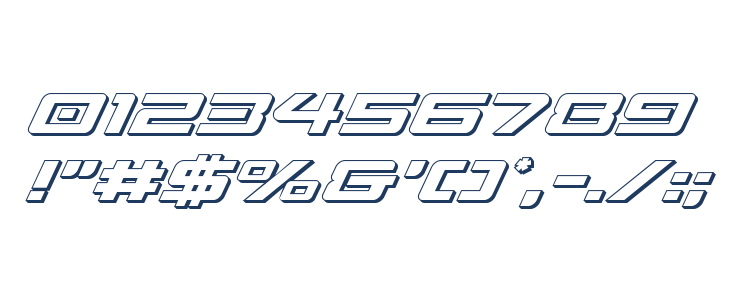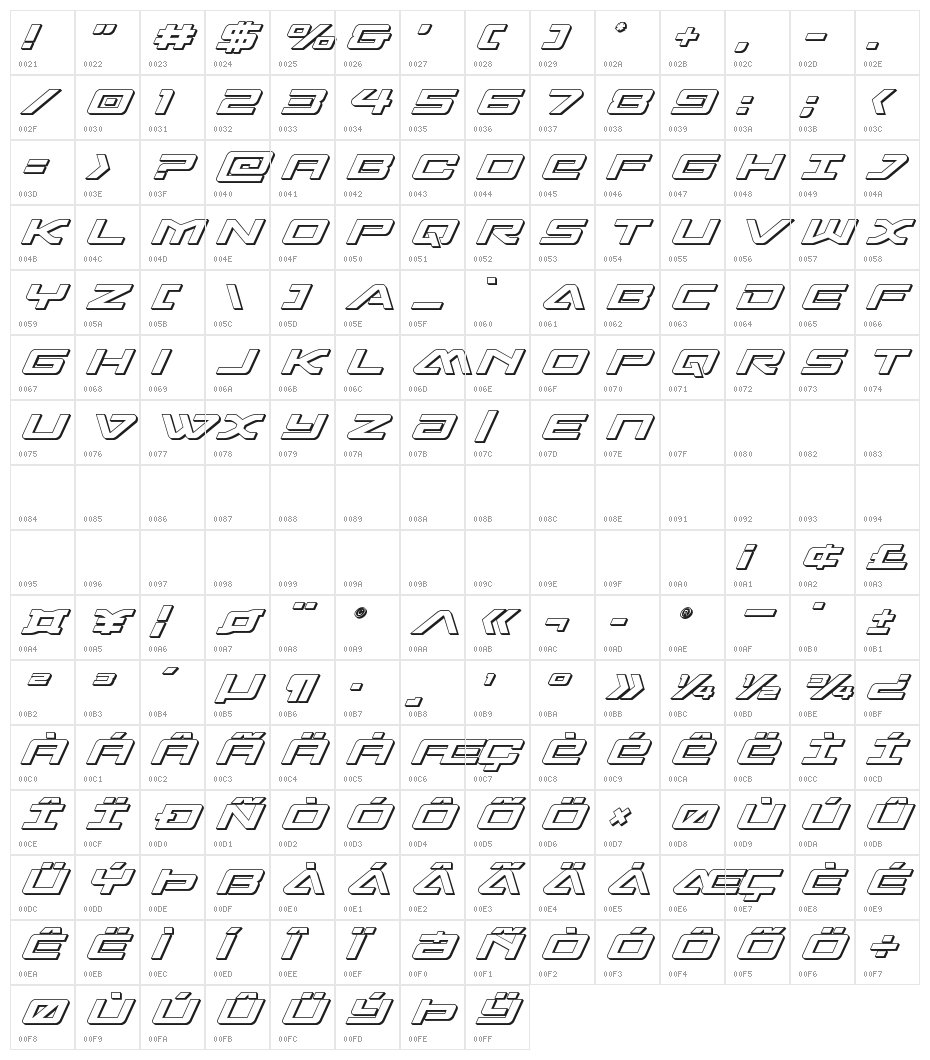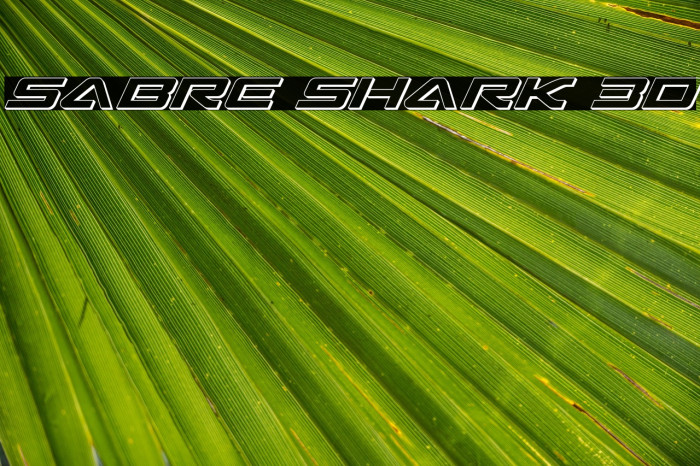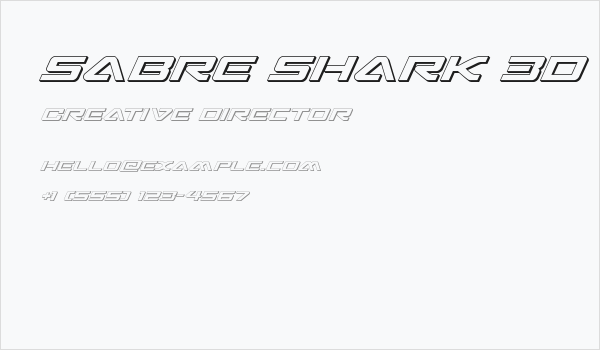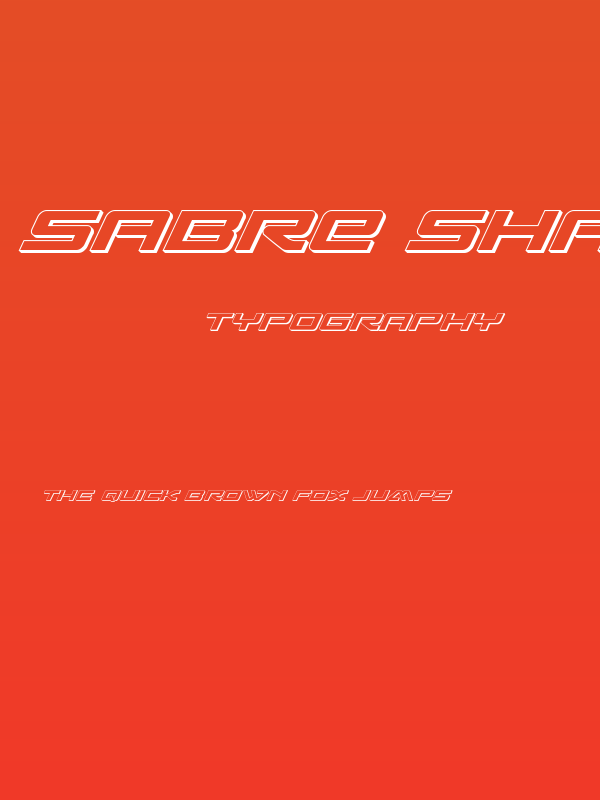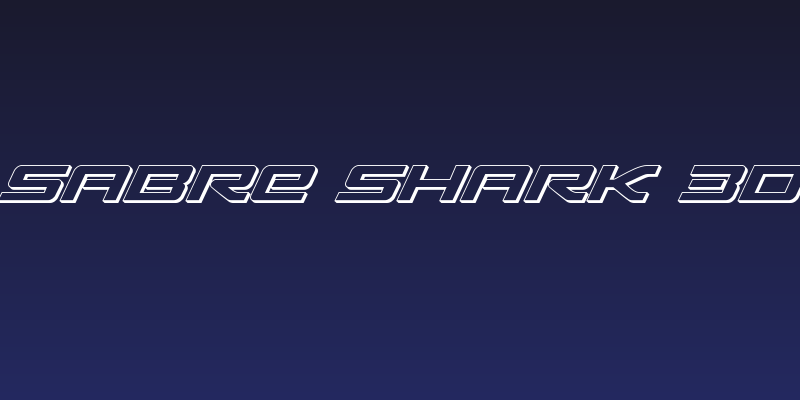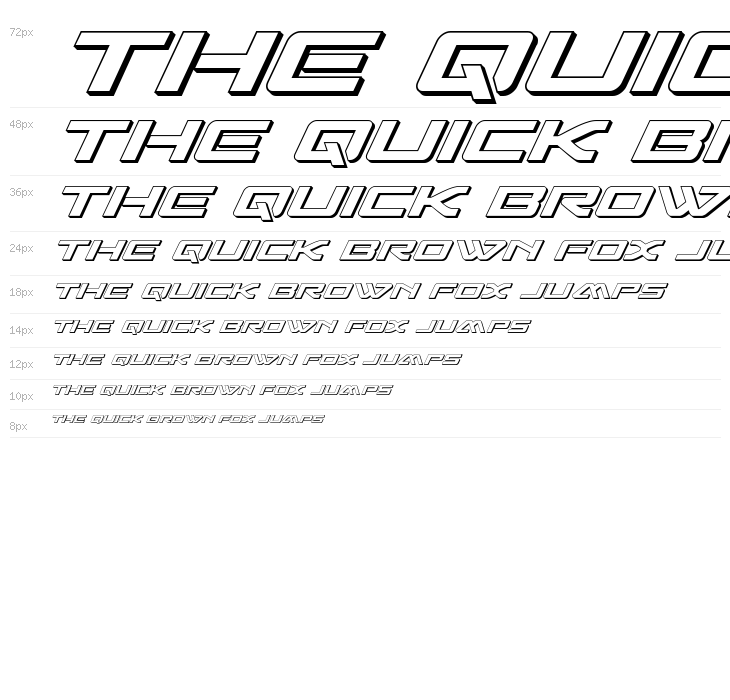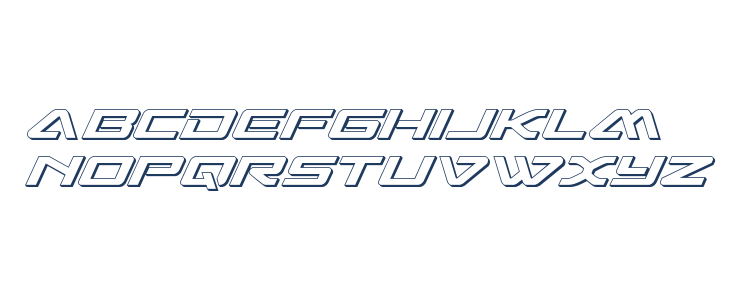
Sabre Shark 3D Font
Sabre Shark 3D Description
This font features a bold, futuristic design with a three-dimensional effect that gives each character a sense of depth and movement. The letters are outlined, creating a hollow appearance that enhances the 3D illusion. The angular, geometric shapes of the characters convey a modern and dynamic feel, making it ideal for projects that require a cutting-edge aesthetic. The font maintains a consistent stroke width, contributing to its clean and structured look. Its unique style is suitable for attention-grabbing headlines and logos.
| Proposed Projects | Ideal for sci-fi themed projects, technology branding, video game titles, and futuristic posters. |